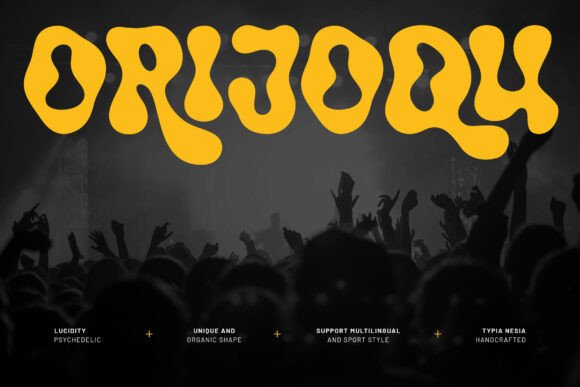
Orijoqu: A Bold Psychedelic Display Font for Expressive Branding
It started with a blank Figma board and a client email: “We’re opening a small-batch herbal tea shop—think warm, earthy, but with a wink of 70s soul.” No mood board yet. Just intuition, a few reference images of vintage apothecary labels and sun-faded concert posters, and the quiet thrill of early-stage design exploration. That’s when I dropped Orijoqu onto the artboard—and everything shifted.
Orijoqu is a display font, no question. But it’s not just *any* retro typeface. It’s bold, yes—but also fluid, liquified in a way that feels intentional, not chaotic. The letterforms swell and taper like ink bleeding gently on newsprint, with subtle psychedelic undulations in the stems and terminals. There’s groove in the curves, funk in the spacing, and unmistakable 70s warmth—without tipping into caricature. It doesn’t shout “vintage”; it hums it.
I tested it first on the shop’s name—a short, two-word phrase—set large over a soft linen texture. Instantly, it gave the logo draft personality: approachable but memorable, grounded but playful. Orijoqu works best as a logo font or headline font, especially where you need strong visual hierarchy and emotional resonance. It’s not built for body copy—no one wants to read 300 words of tea origin stories in liquified letters—but it shines in short-form contexts: shop signage, product labels, Instagram story headers, limited-edition packaging, and even embroidered tote bags.
On a matte black ceramic mug label? Stunning. The contrast between the organic clay surface and Orijoqu’s rhythmic weight creates tactile harmony. On a kraft paper tea box? It holds its own without competing with natural textures—its boldness anchors the design, while its fluidity keeps it from feeling stiff or corporate. And on the homepage hero section? Paired with generous whitespace and a muted ochre background, it becomes the focal point—not just readable, but felt.
That said, Orijoqu needs thoughtful pairing. I landed on a clean, slightly rounded sans serif (a variable-weight family with open counters and friendly proportions) for supporting text—menus, ingredient lists, website body copy. The contrast works beautifully: Orijoqu brings character; the sans brings clarity. For editorial touches—like seasonal newsletter headers—I occasionally swapped in a delicate serif with low contrast and modest serifs, just to add typographic dimension without diluting the brand’s core voice.
One thing I appreciated right away: Orijoqu includes stylistic alternates and ligatures. Not flashy ones—just subtle variations on ‘&’, ‘ff’, ‘fi’, and a few swash capitals—that let you fine-tune rhythm and flow. No OT features are over-engineered; they’re practical, usable, and feel like part of the font’s DNA. It ships in OTF and WOFF2, with full commercial licensing—so whether you’re designing for a local café, a handmade skincare line, or a creative studio’s rebrand, you’re covered.
I did test readability across formats. On a 36-inch storefront sign? Excellent—even at distance, the bold weight and clear letter shapes hold up. On a business card at 10pt? Too dense. But at 14–16pt for a tagline or monogram? Perfect. On social media thumbnails (especially Instagram and Pinterest), it grabs attention without sacrificing legibility—particularly against soft gradients or grainy photo backgrounds. Its personality actually helps with recognition: people remember how it *feels*, not just how it looks.
What surprised me most was how well it translated across mediums. Printed on uncoated stock? The ink spread ever so slightly—enhancing the liquified effect. Screen-displayed with subpixel rendering? Still crisp and intentional. Even in motion—like a looping animation for a website banner—the font’s rhythm made transitions feel organic, not jarring. That’s rare for expressive display fonts.
Before locking it into the full brand system, I ran three quick checks: First, I set every word in the brand’s core messaging—“small-batch,” “hand-harvested,” “slow-crafted”—to see which phrases sang and which felt strained. Orijoqu loves rhythm, so compound words or all-lowercase treatments worked better than rigid all-caps blocks. Second, I exported mockups to my phone and tablet—no zooming—to confirm impact at real-world viewing sizes. Third, I printed a mini style guide on actual label stock and held it next to competitor products. Orijoqu didn’t blend in—it stood out with warmth, not noise.
It’s worth noting: Orijoqu isn’t trying to be versatile. It’s a specialist—a premium font with a distinct point of view. That’s its strength. In an era where many brands default to minimalist sans serifs, choosing Orijoqu signals intentionality. It says, “We care about craft, mood, and memory—not just utility.” And for clients who want their identity to resonate emotionally—not just communicate functionally—it’s a powerful tool.
For designers building real brands—not theoretical ones—Orijoqu fits seamlessly into workflows: drop it into Figma or Adobe Creative Cloud, test it alongside your color palette and photography style, and trust its voice. It’s not a trend-chaser; it’s a tone-setter. Whether you're designing for a neighborhood bakery, a ceramicist’s online shop, or a vinyl record pop-up, Orijoqu adds soul without sacrificing professionalism.
Because great display fonts don’t just fill space—they hold space. And Orijoqu holds it with confidence, charm, and just the right amount of liquid magic.